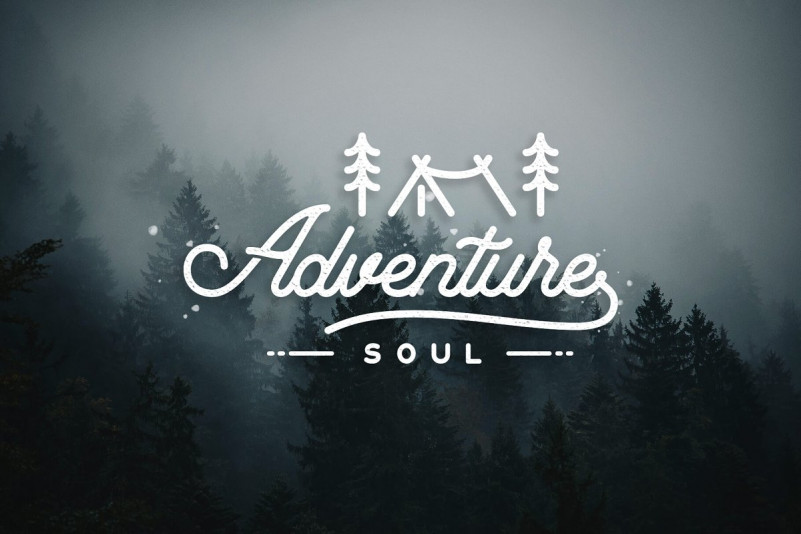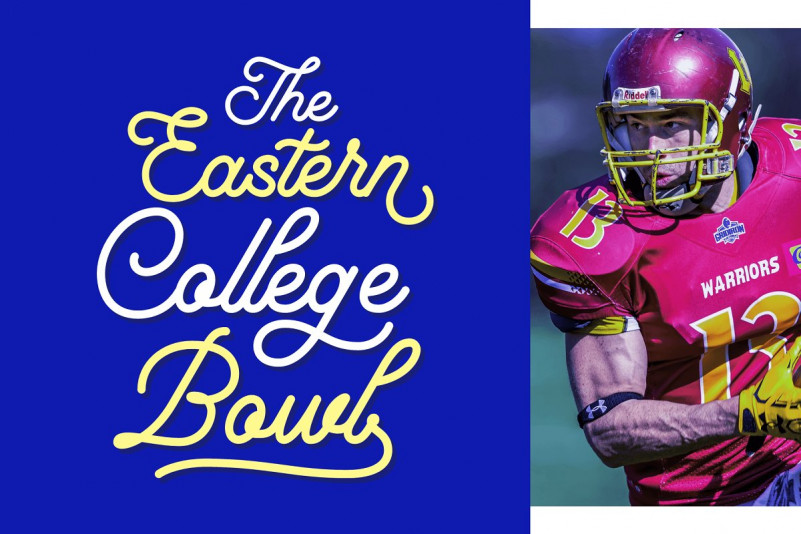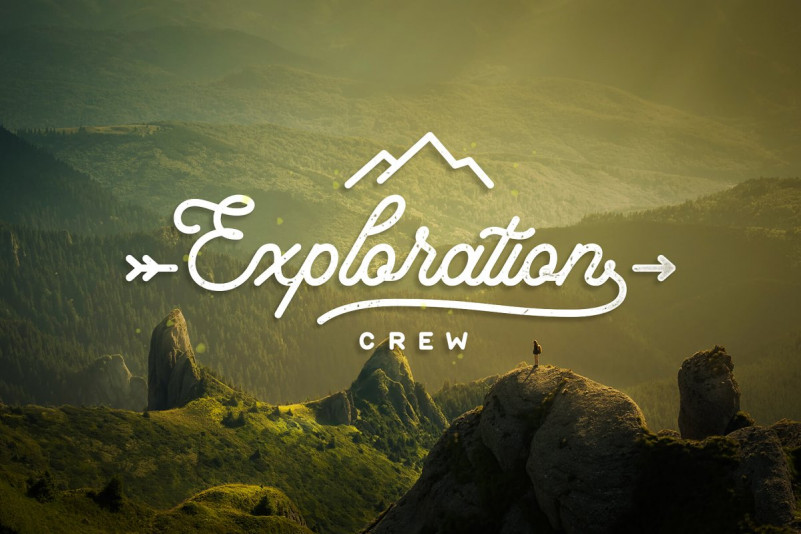
Florista Script Font
Florista Script – Demo Font
Introducing an elegant monoline font. Flowing characters are ideal for making interesting messages, to fit your project. It is called Florista Font. A seamless clean script font. Came up with alternates, ligatures, contextual alternates and ligature end swash ( type s1, s2, s3 ) . This font will nail your any design projects. This fonts are great for logotype, badges, clothing, poster, and much more.